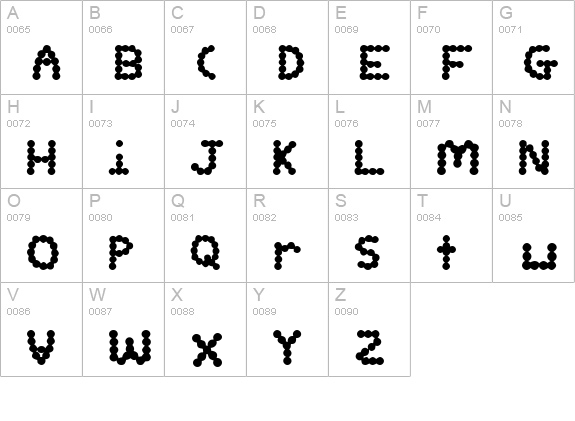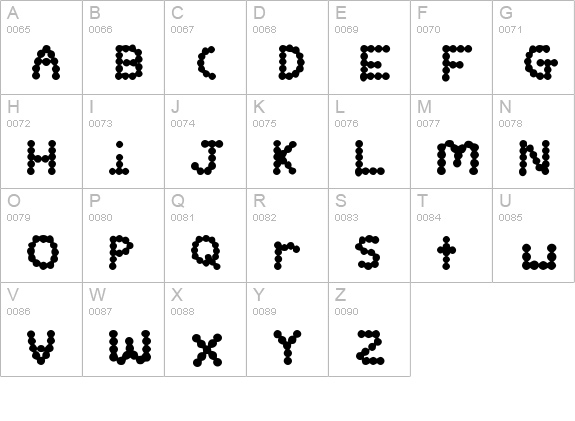
bubba Font Details
Bubba Font is a charming and playful typeface that adds a touch of whimsy to any design project. Its rounded edges and bold strokes give it a friendly and inviting appearance, making it perfect for use in children's books, posters, logos, and more. This versatile font is free to download at FontsMarket.com, allowing you to easily incorporate it into your creative work without any cost. Whether you're looking to add a fun element to your designs or simply want to experiment with a new font style, Bubba Font is a fantastic choice that is sure to bring a smile to your audience's face. Don't miss out on the opportunity to enhance your projects with this delightful typeface - download Bubba Font today and let your imagination run wild!